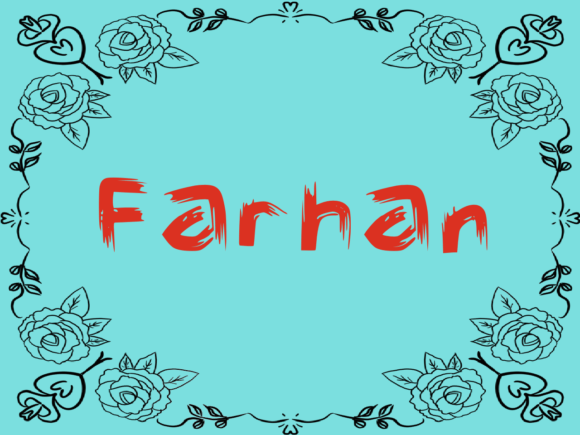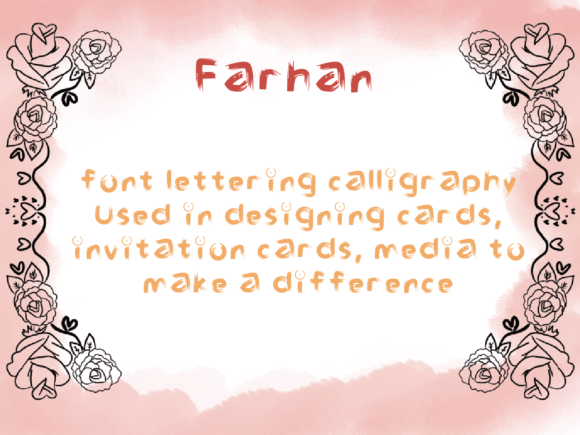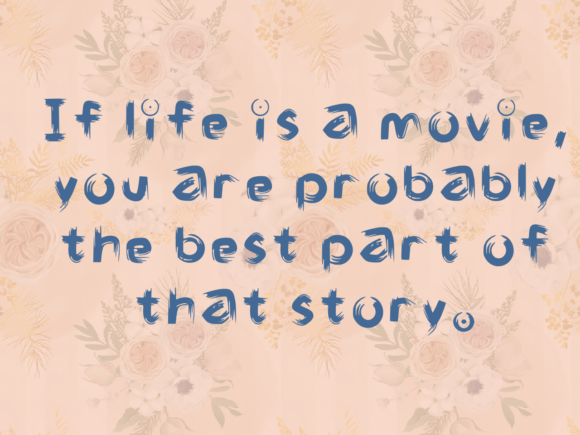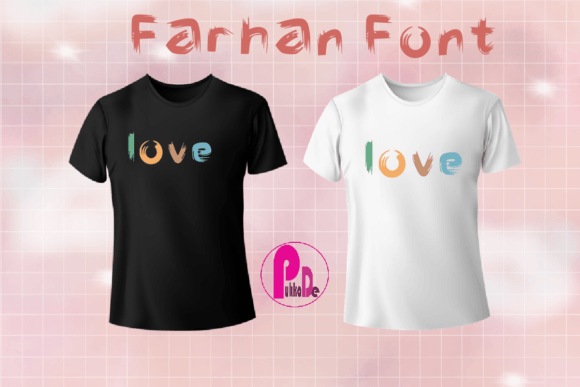
Farhan Font
Introduction to Farhan Font
Farhan Font is a unique typeface that looks like it was drawn with a thick brush. This handwritten style gives your designs a creative and personal touch. It is ideal for anyone wanting to add boldness and character to their projects.
Perfect for Branding and Logos
This font works great in branding. Businesses aiming for a trendy and artistic look will find Farhan very useful. It stands out in logos, headers, and product packaging. Its distinctive style makes brands memorable and approachable.
Great for Social Media Designs
Social media content benefits from attention-grabbing fonts. Farhan’s brush strokes create a lively and dynamic impression. It enhances posts, stories, and banners on platforms like Instagram and Facebook. The font pairs well with simple or colorful backgrounds.
Best Use Cases for Farhan Font
Farhan is ideal for titles, quotes, and highlights. Its thick strokes may overwhelm long paragraphs. For body text, use simpler fonts to maintain readability. Mixing Farhan with clean sans-serif fonts creates a professional and balanced look.
Creative Projects and Invitations
Designers use Farhan for wedding invitations, greeting cards, and posters. It transforms ordinary text into artistic visuals. The brush texture adds warmth and style to special occasion designs.
Farhan Font is a valuable tool for designers. Its handwritten brush style adds creativity and uniqueness. Whether for branding, social media, or personal projects, it makes text stand out. Use Farhan to give your work an artistic edge that leaves a lasting impression.